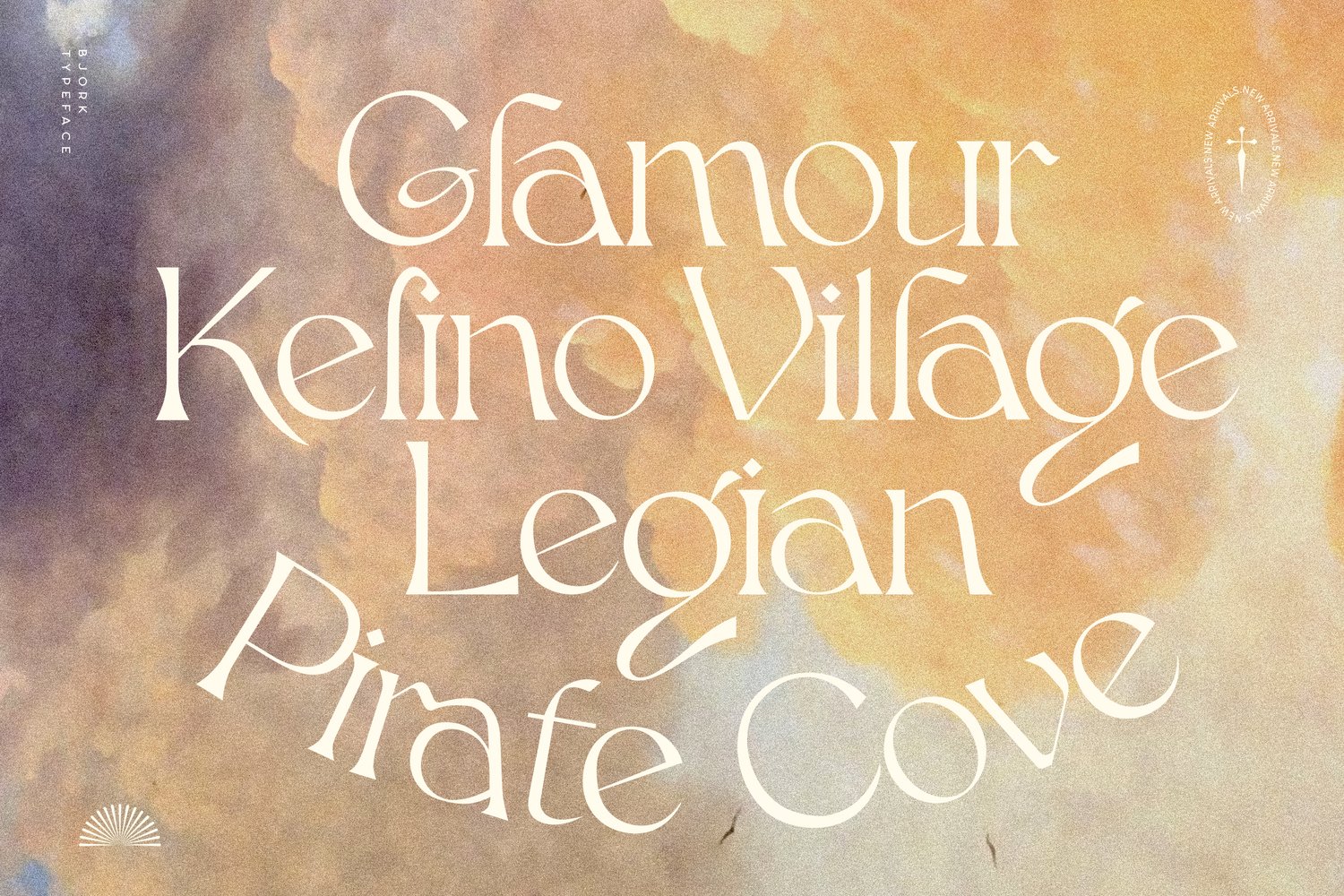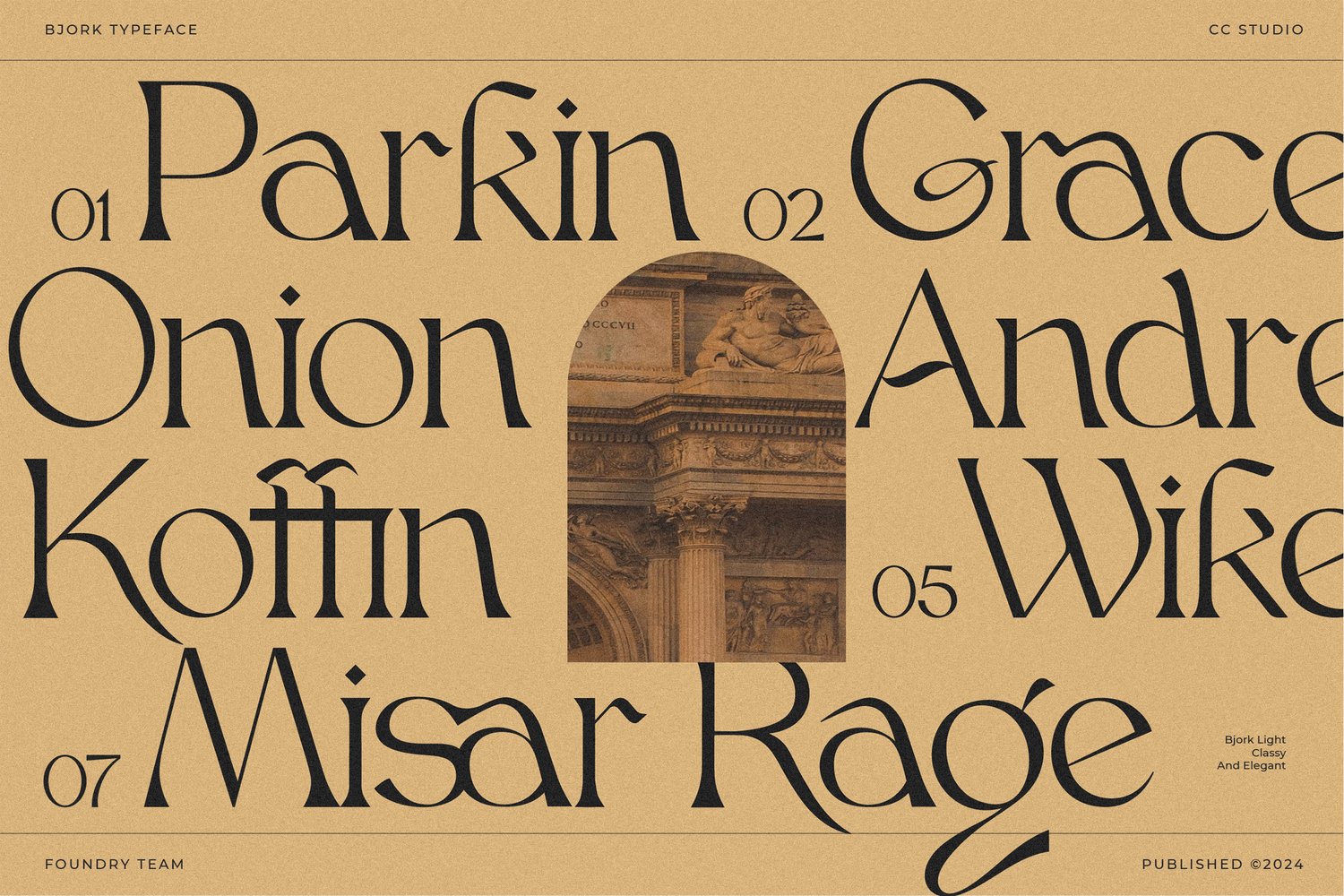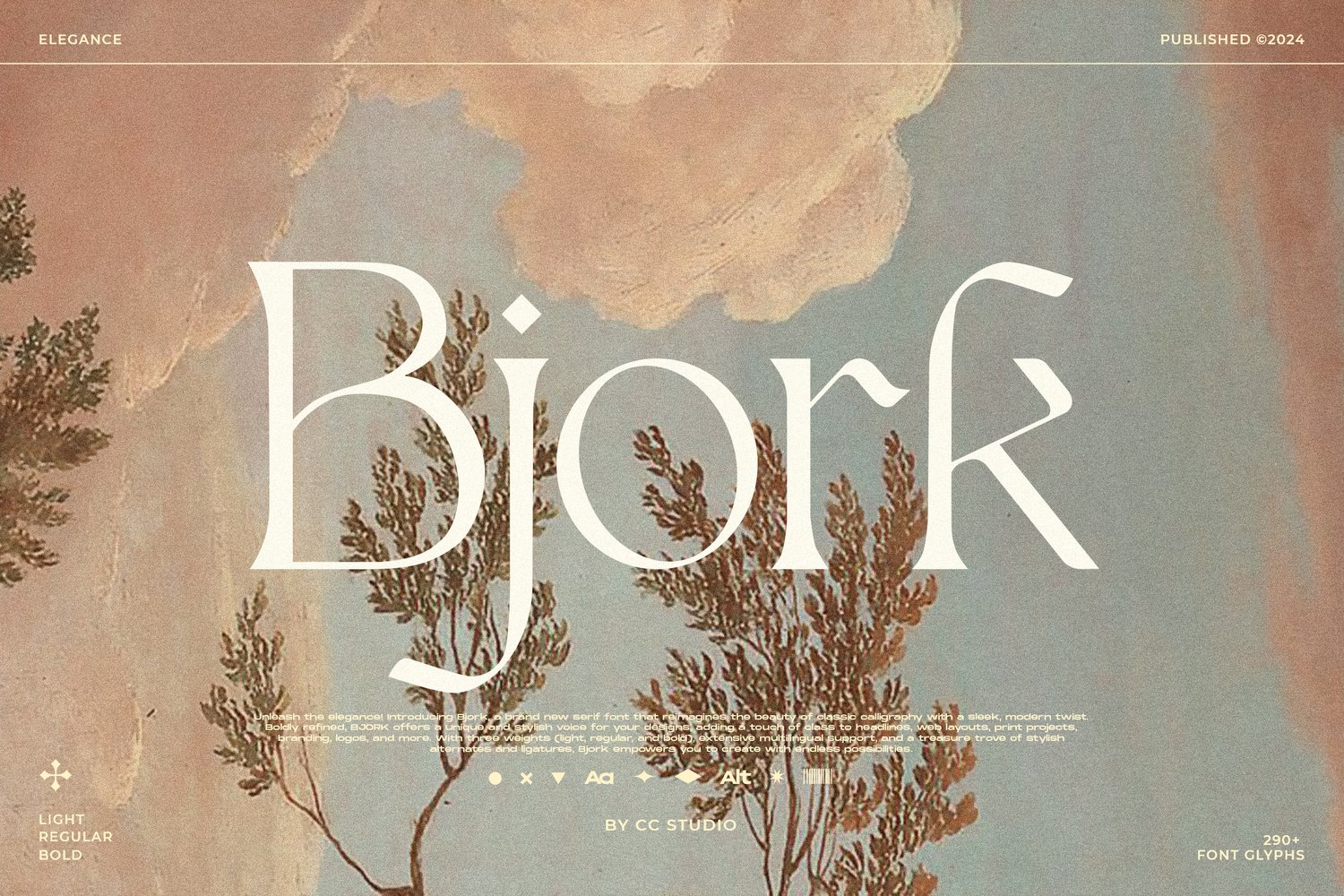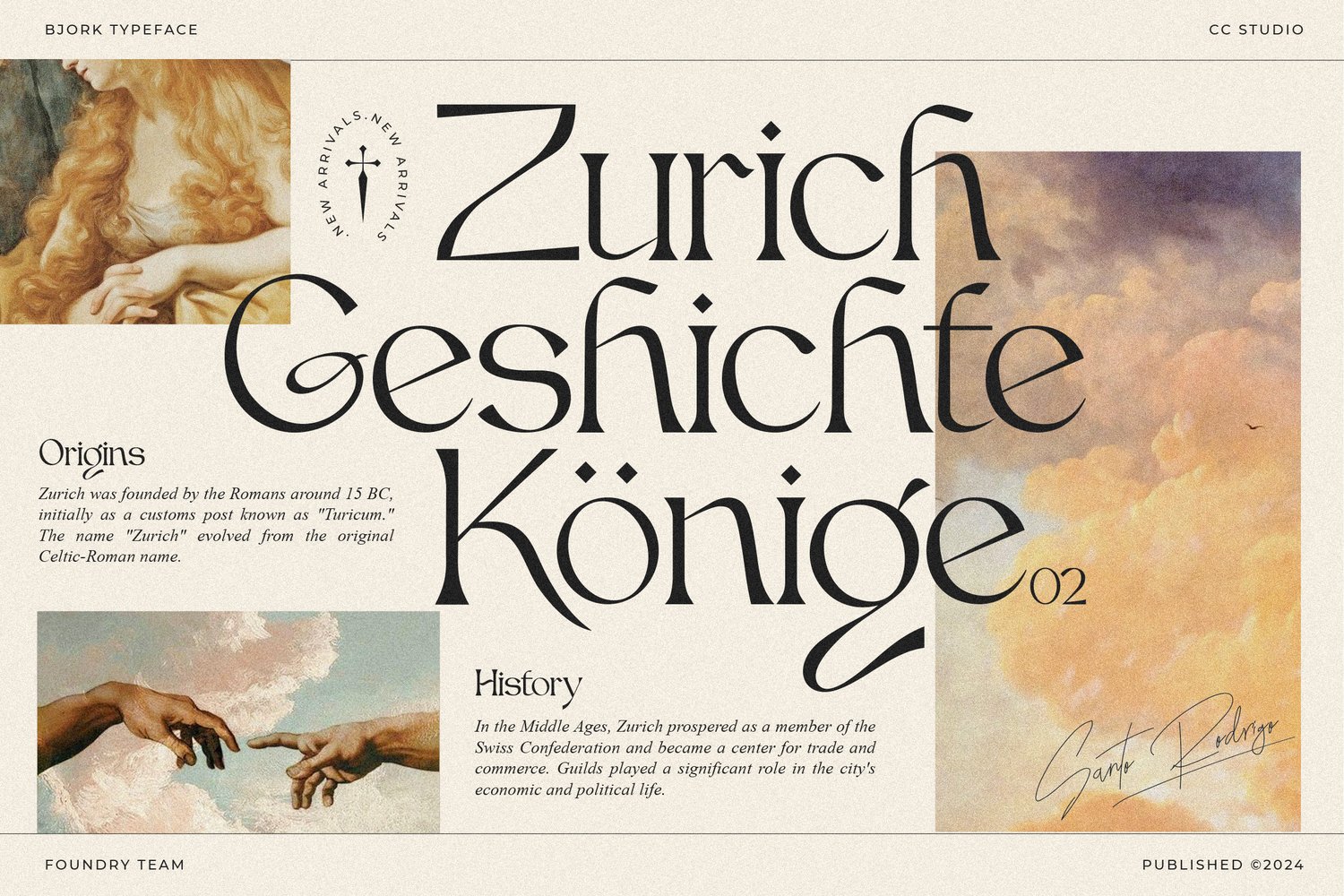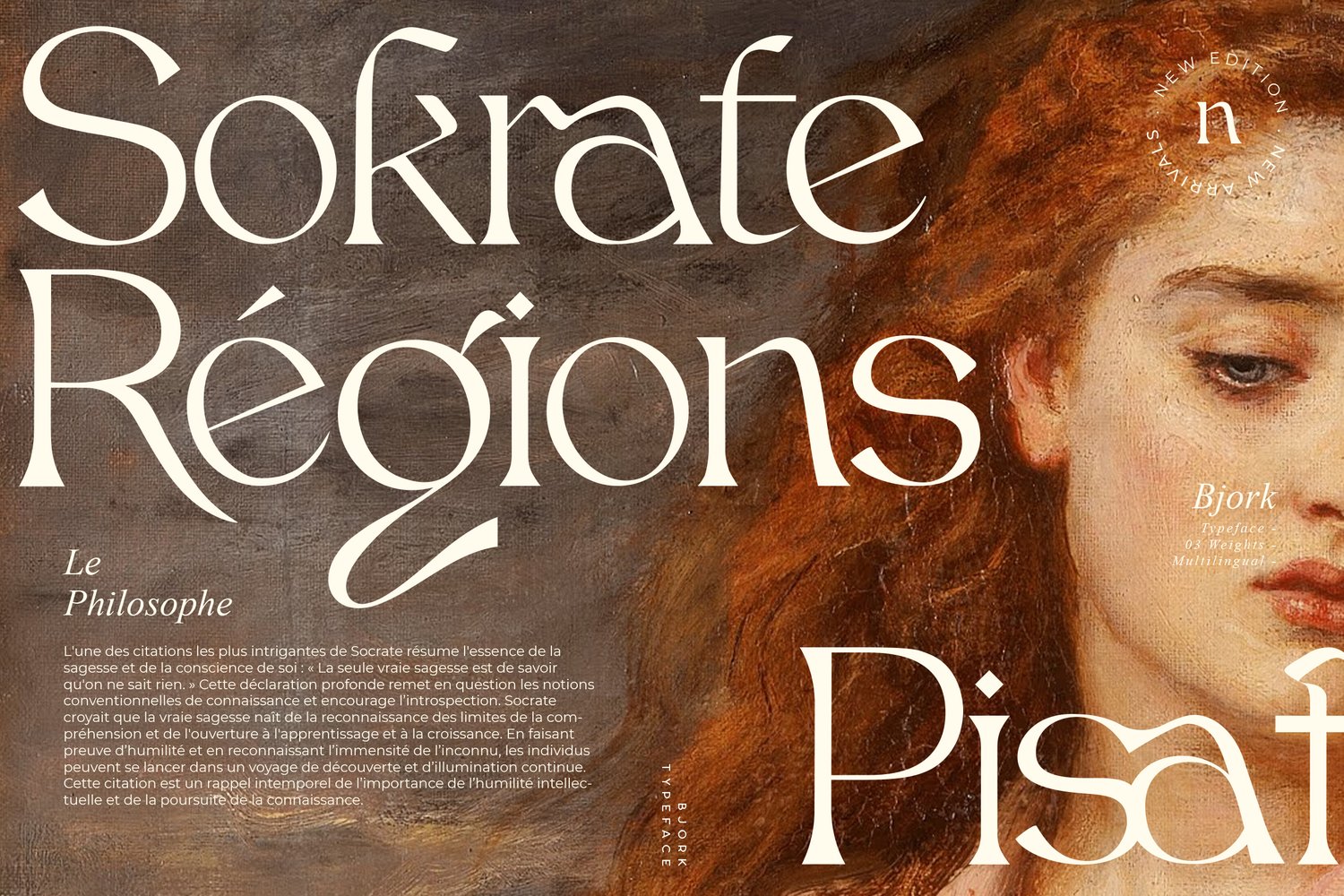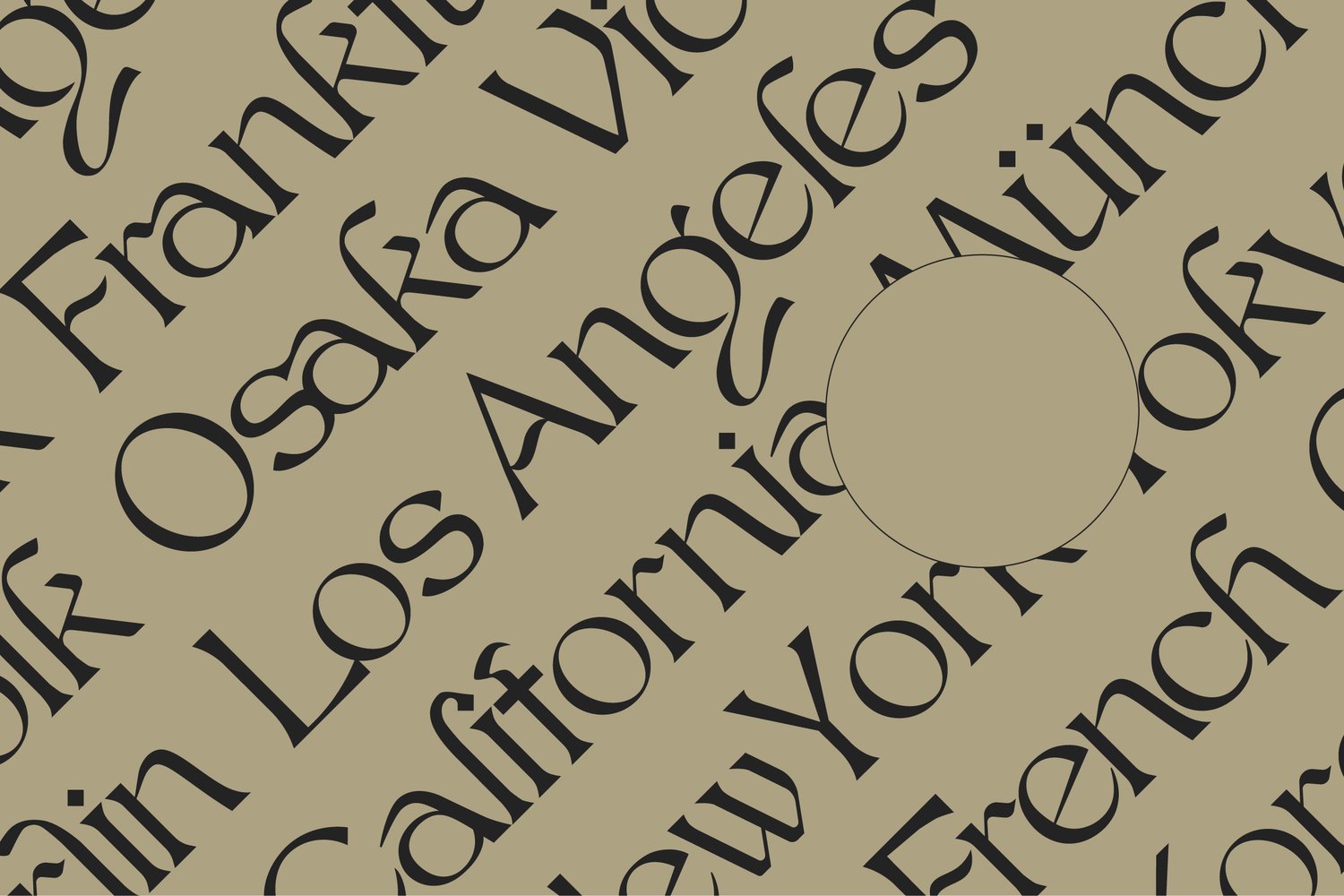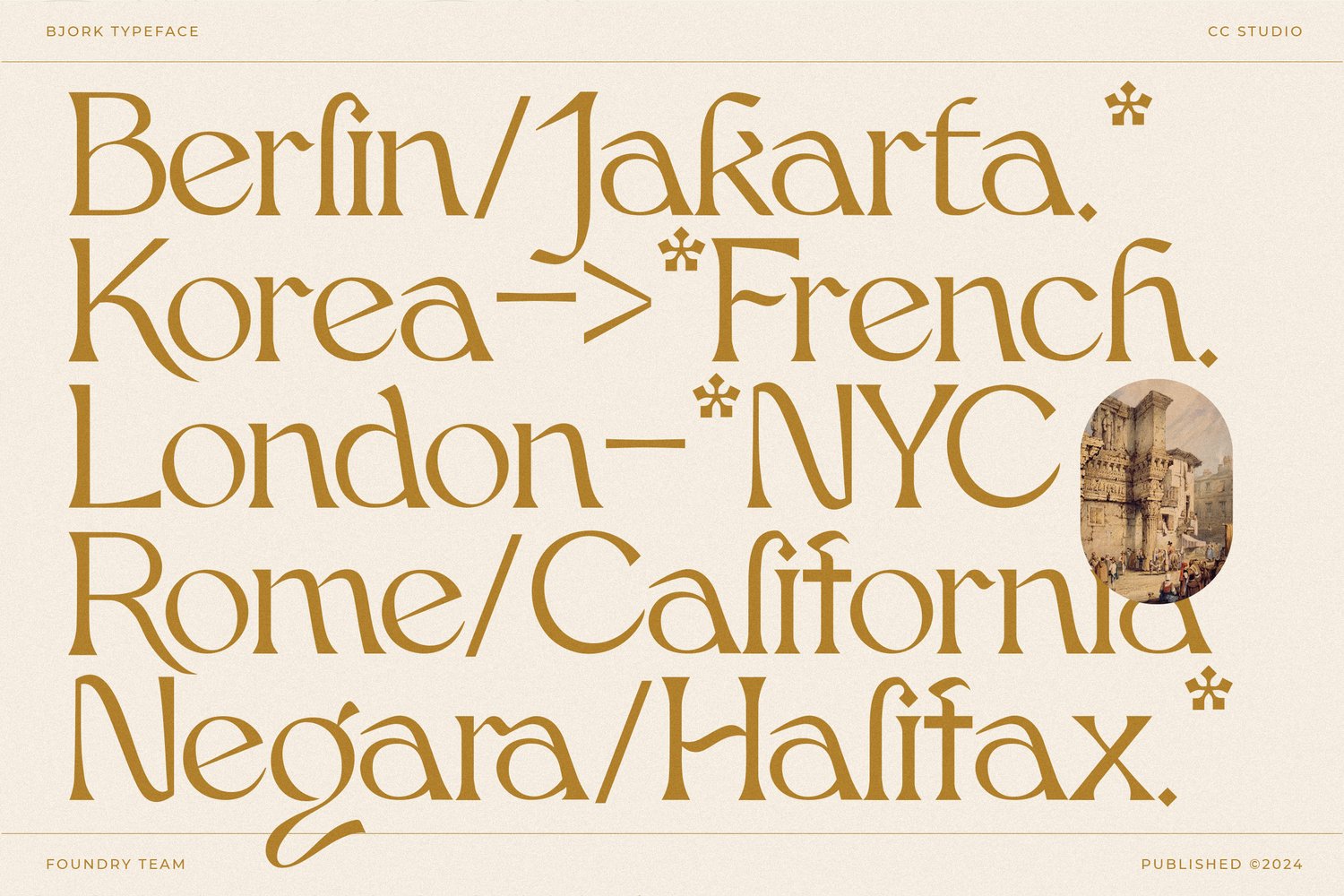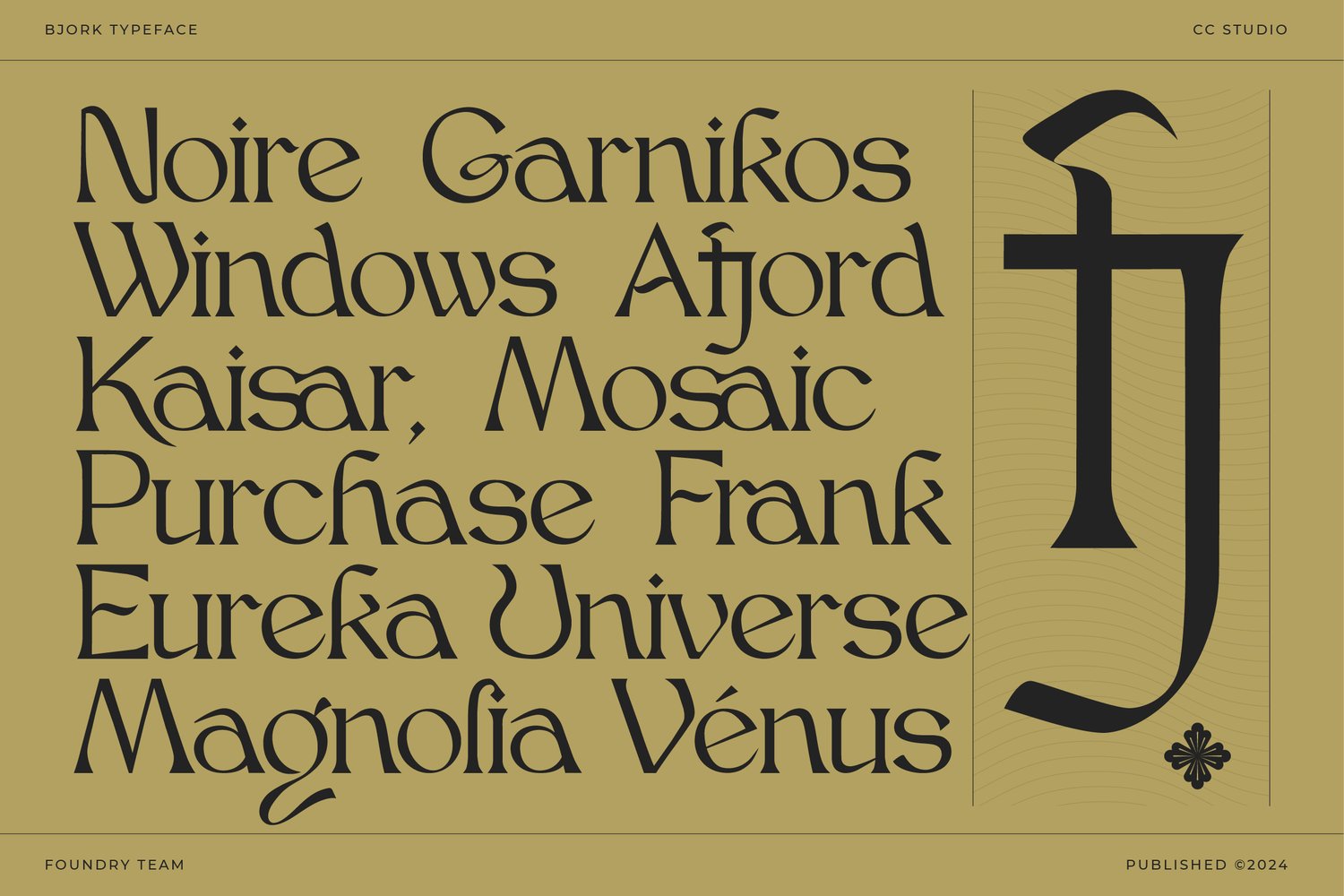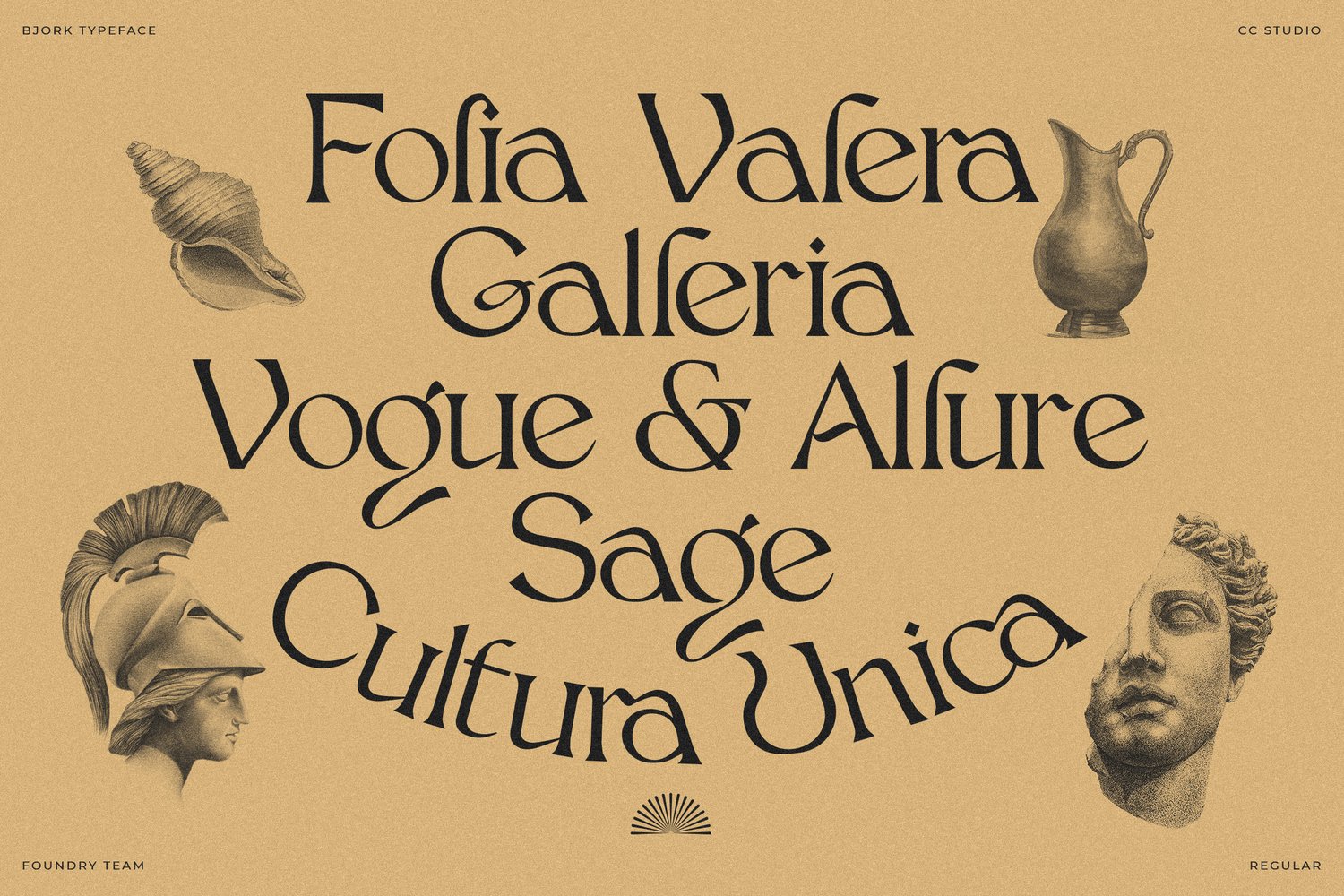
Bjork Serif
Unleash the elegance! Introducing Bjork, a brand new serif font that reimagines the beauty of classic calligraphy with a sleek, modern twist. Boldly refined, Bjork Serif offers a unique and stylish voice for your designs, adding a touch of class to headlines, web layouts, print projects, branding, logos, and more. With three weights (light, regular, and bold), extensive multilingual support, and a treasure trove of stylish alternates and ligatures, Bjork empowers you to create with endless possibilities.
Features:
- 3 Weights font
- Stylistic Alternates & Ligatures
- Multilingual